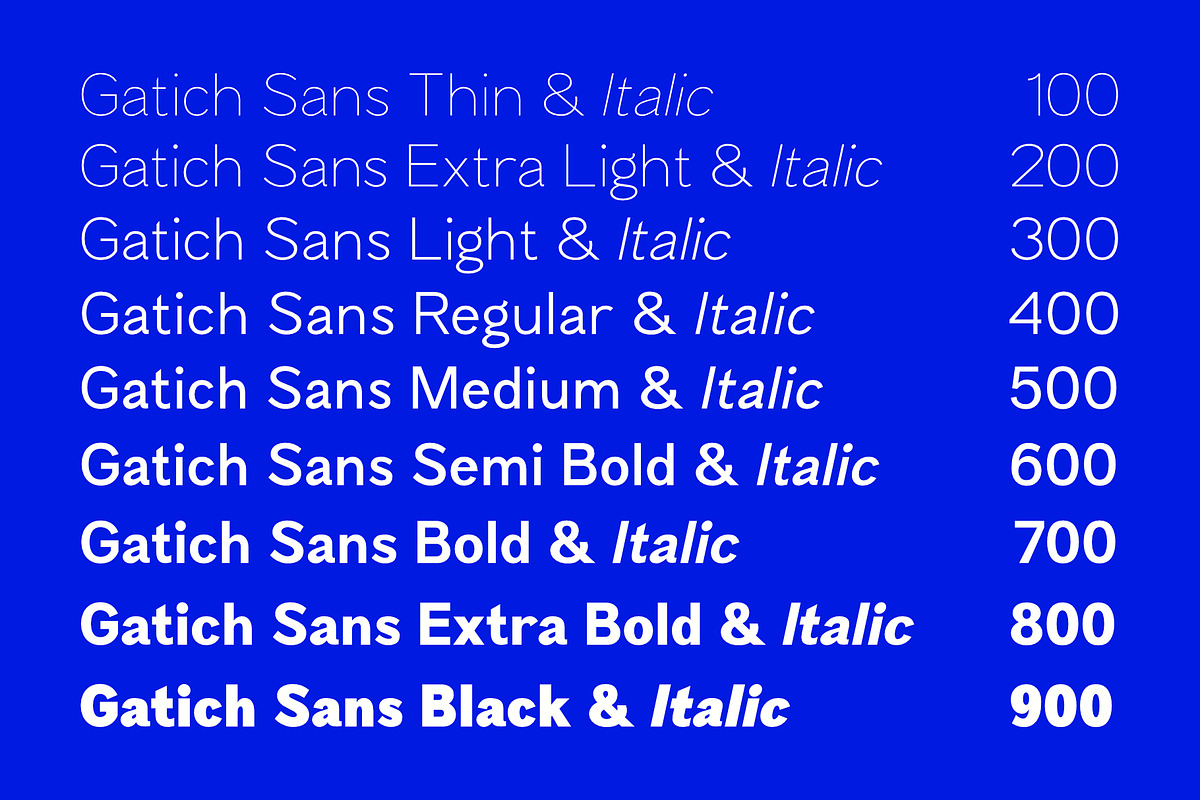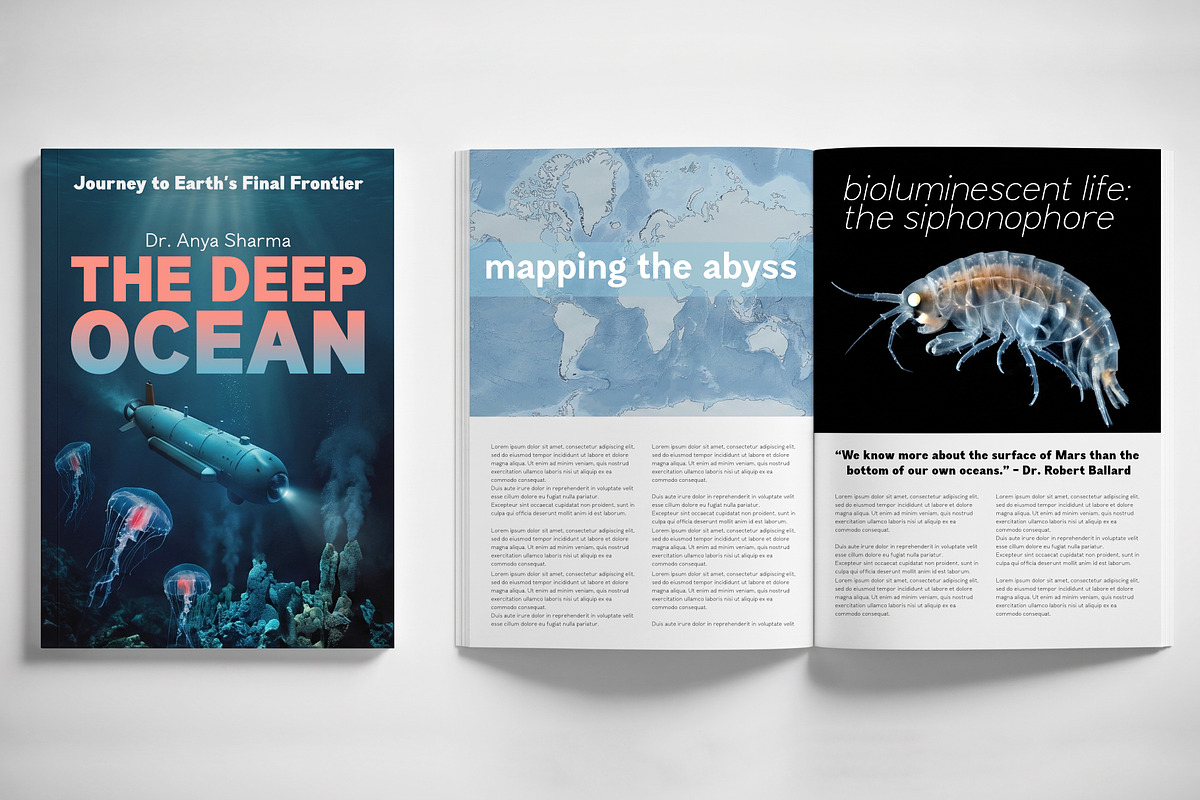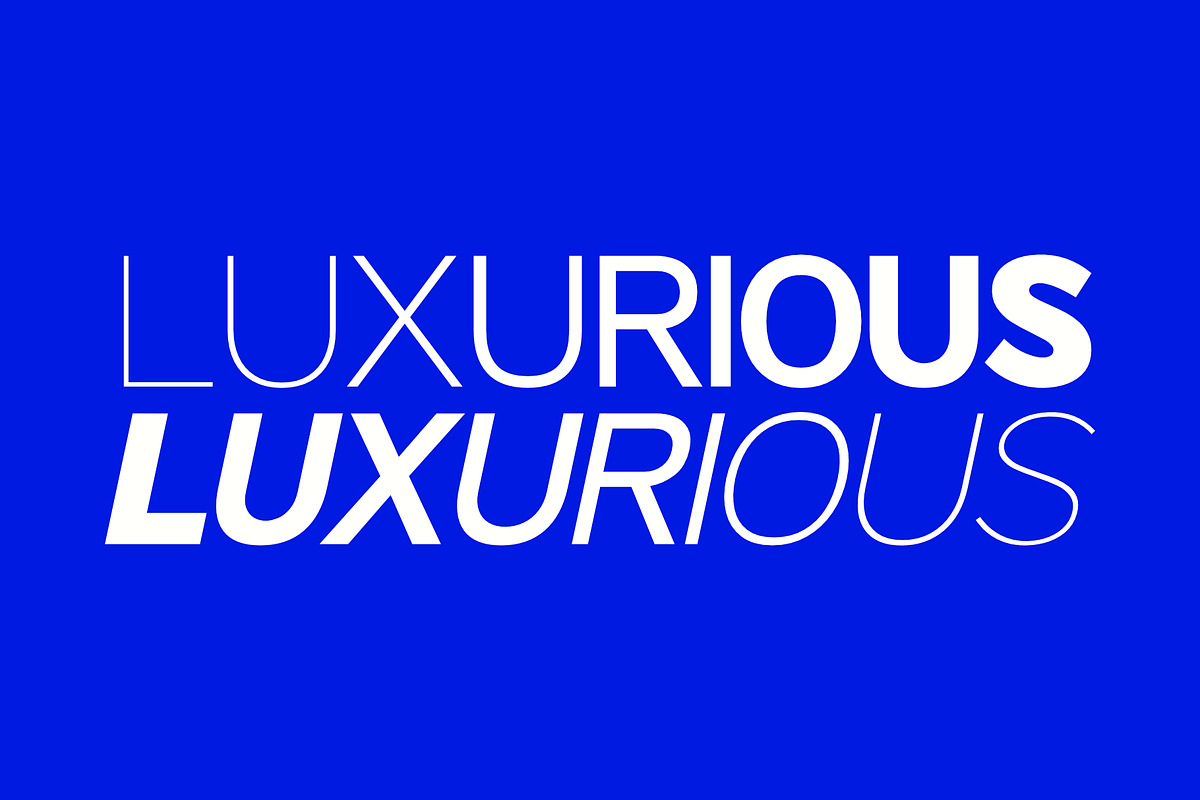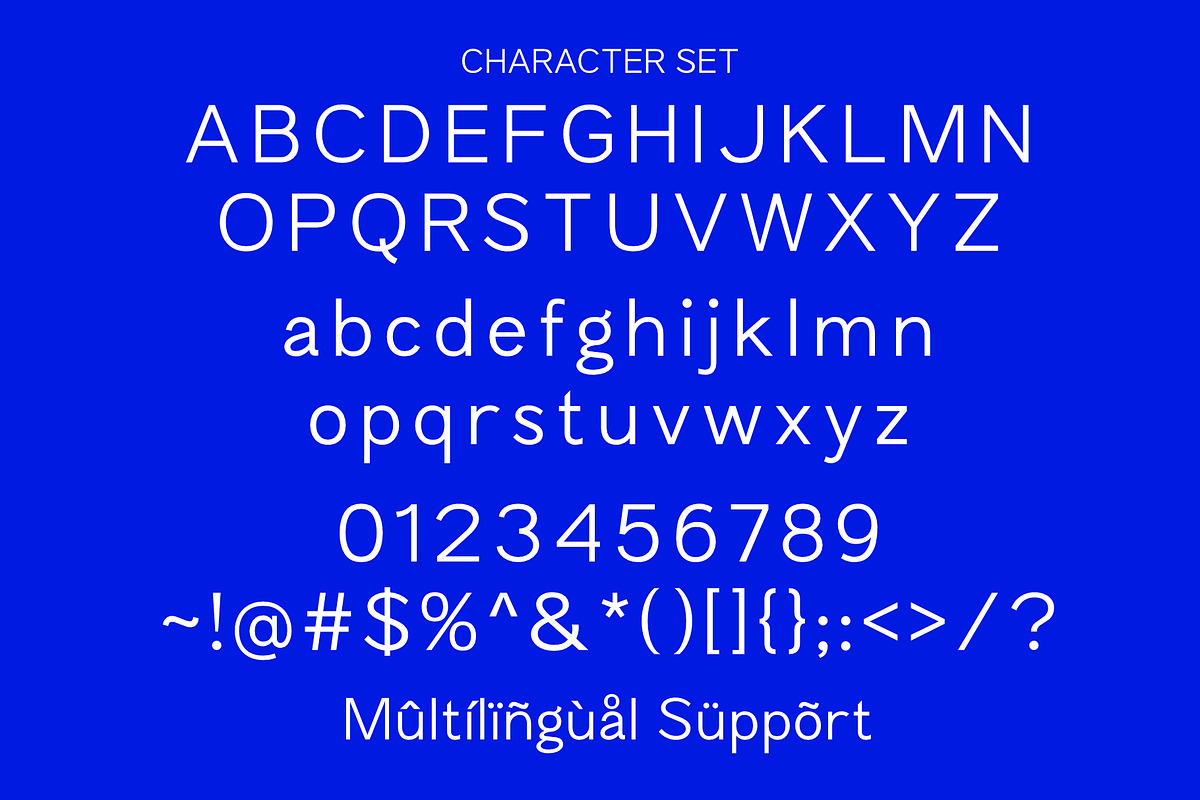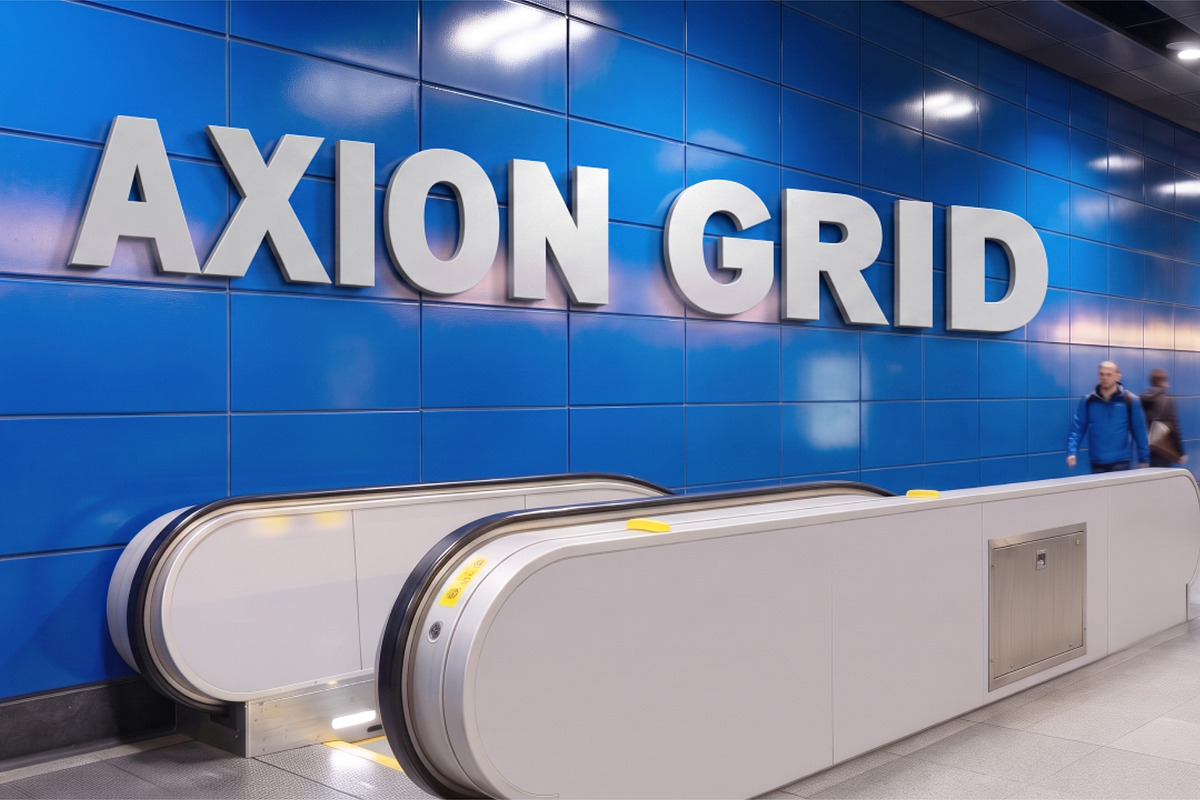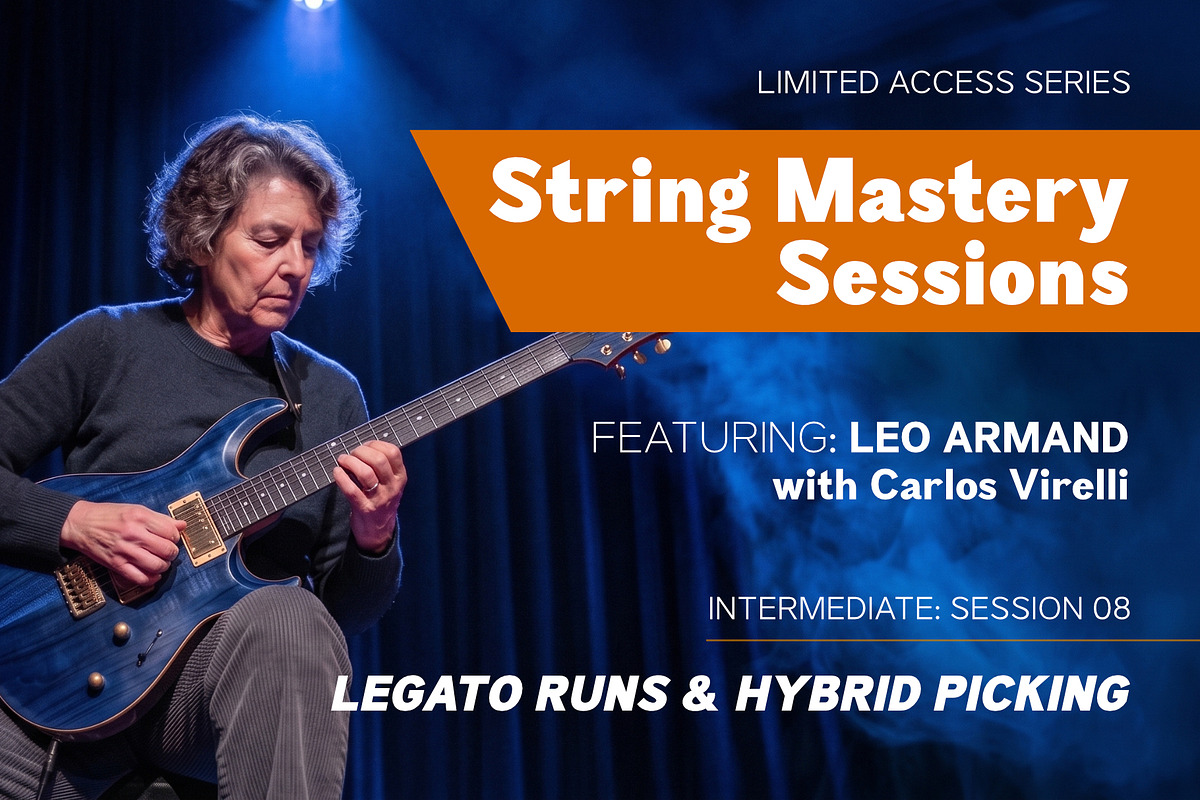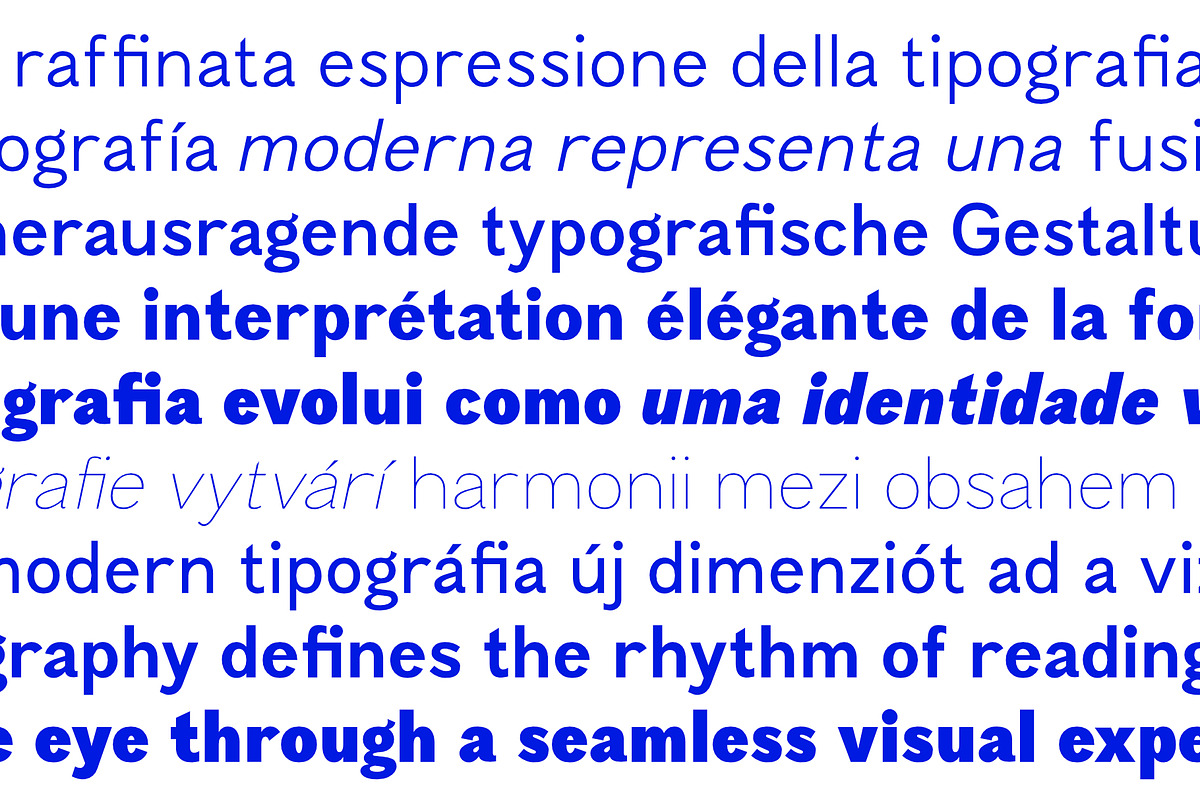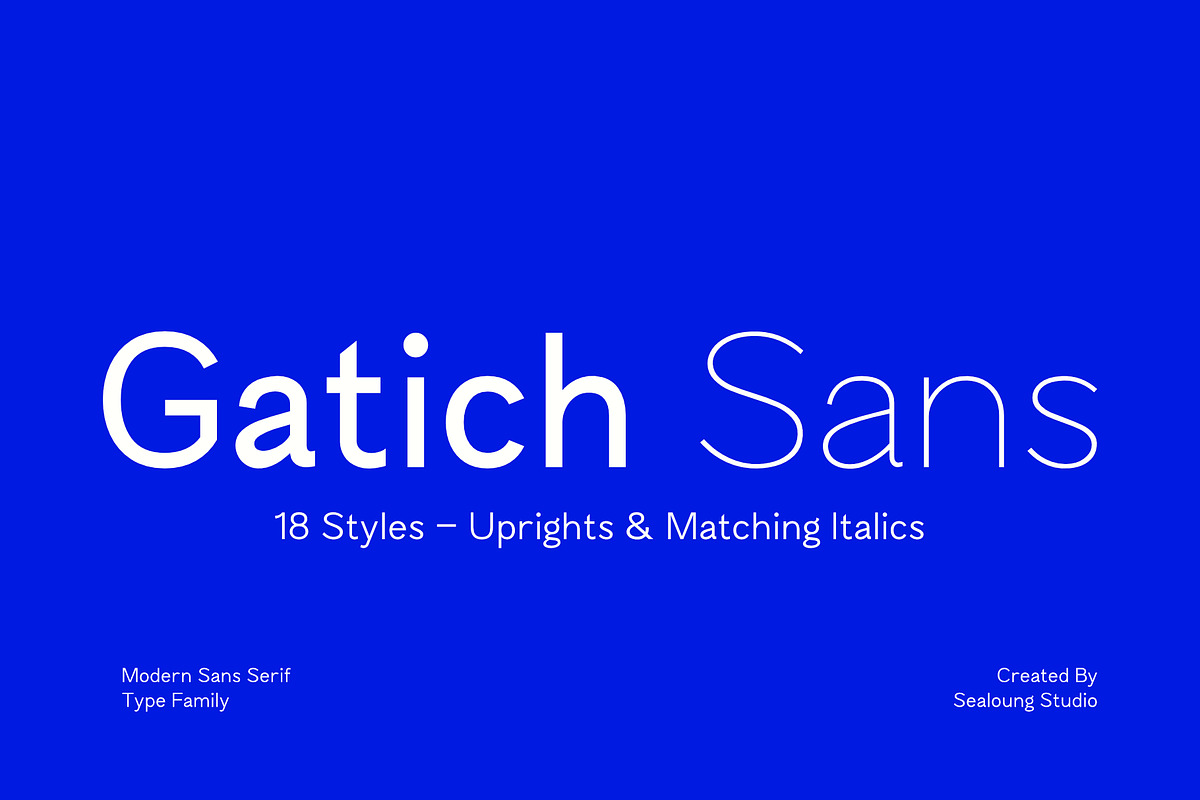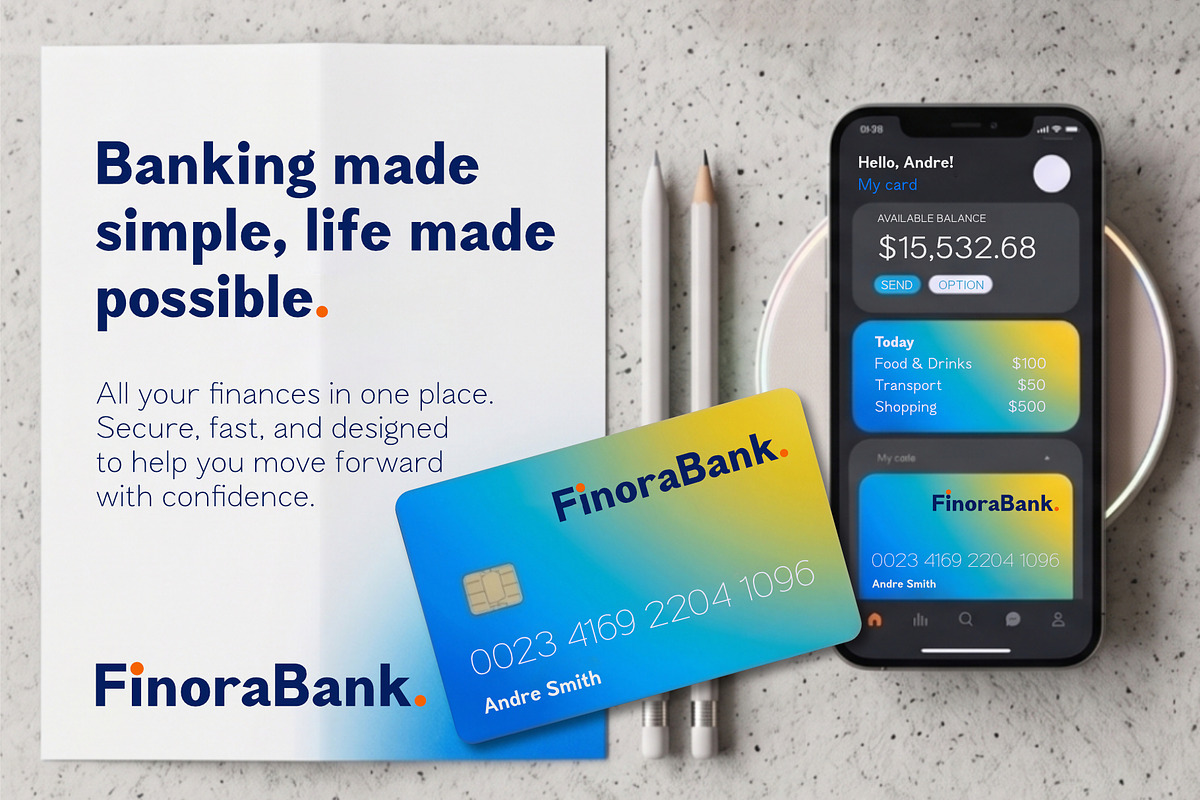
Gatich Sans - Sans Serif Type Family
Gatich Sans is a modern and refined sans serif typeface designed to deliver clarity, elegance, and versatility across a wide range of design needs. Built with a clean geometric structure and smooth proportions, Gatich Sans brings a contemporary voice that feels both professional and approachable.
This type family includes 18 carefully crafted styles, featuring upright and matching italics that work seamlessly together. Each style is designed to maintain consistency while offering flexibility, making it ideal for branding, editorial layouts, web design, user interfaces, and corporate identities.
Gatich Sans stands out with its balanced letterforms, open spacing, and subtle modern details that enhance readability at any size. Whether used for bold headlines or long-form text, it provides a polished and cohesive visual experience.
8 Styles (Upright & Italic)
Clean and Modern Sans Serif Design
Highly Readable for Display and Text
Balanced Proportions and Spacing
Suitable for Branding, UI, Editorial, and Digital Use
Gatich Sans is a perfect choice for designers looking to create a strong, modern, and timeless visual identity.